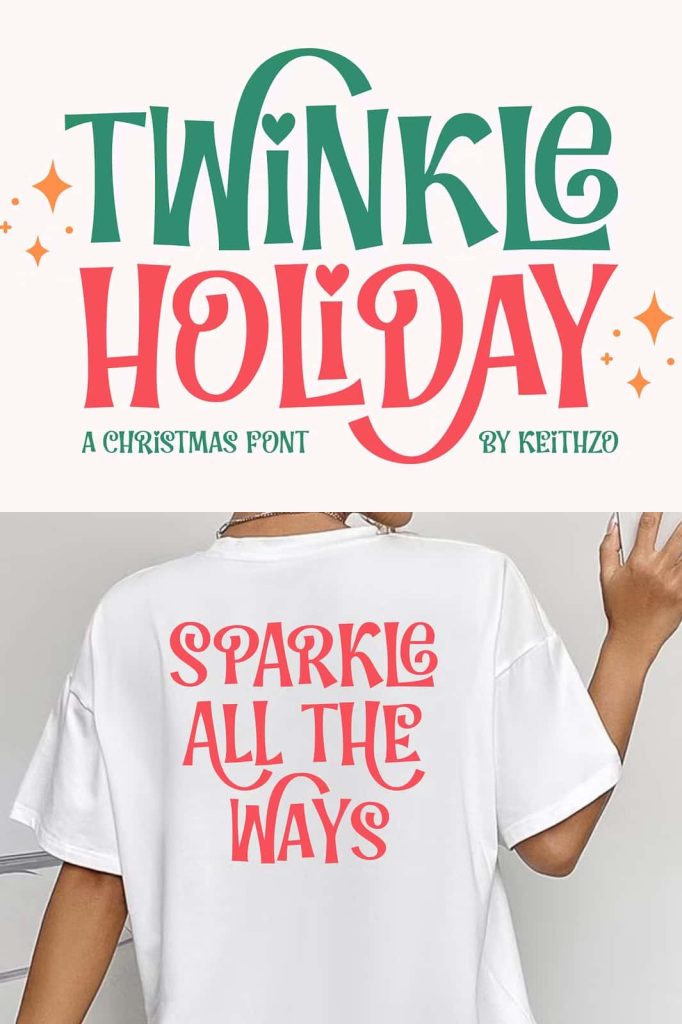
Twinkle Holiday Font
Twinkle Holiday is a beautifully handcrafted display font designed to fill every project with warmth, joy, and festive elegance. Created with a charming handmade touch, this typeface captures the magical spirit of the holiday season while offering exceptional versatility for year-round creative projects. Every letter reflects careful craftsmanship, allowing designers, crafters, and creative professionals to produce typography that feels authentic, inviting, and full of personality.
What makes Twinkle Holiday truly special is its ability to combine uppercase and lowercase letters seamlessly, creating natural variations that give every word a custom hand-lettered appearance. With beautifully designed alternate characters and decorative swashes, this font allows you to build expressive typography effortlessly, transforming ordinary text into memorable works of art.
Whether you’re designing holiday greeting cards, personalized gifts, seasonal branding, festive decorations, or creative social media content, Twinkle Holiday adds a delightful handcrafted charm that instantly captures attention.
A Beautiful Handcrafted Holiday Typeface
Twinkle Holiday celebrates the beauty of handmade lettering through carefully designed letterforms that feel both elegant and playful. Instead of rigid geometric shapes, every character features smooth curves, flowing strokes, and organic details that create a welcoming and personal appearance.
The handcrafted construction gives every project warmth and authenticity, making it ideal for creative work that aims to connect emotionally with its audience. From heartfelt holiday messages to premium product packaging, Twinkle Holiday delivers typography that feels sincere and memorable.
Its timeless design extends beyond seasonal projects, making it suitable for creative applications throughout the entire year.
Create Natural Letter Combinations
One of the most impressive features of Twinkle Holiday is its ability to create beautiful lettering simply by combining uppercase and lowercase characters. This thoughtful design approach introduces subtle variation throughout every word, producing typography that closely resembles genuine hand lettering.
The result is text that feels lively, expressive, and naturally balanced. Designers can create sophisticated compositions without spending additional time manually adjusting individual characters.
This feature makes the font especially valuable for invitations, branding, decorative quotes, and personalized gifts where originality matters.
Decorative Alternates and Elegant Swashes
Twinkle Holiday includes a collection of alternate characters and decorative swashes that allow you to customize your typography with ease. These OpenType features provide greater creative flexibility while maintaining consistency across your designs.
The elegant swashes add graceful finishing touches to words, creating typography that feels luxurious and handcrafted. Whether you want a subtle flourish or a more decorative appearance, the alternate options help you achieve the perfect visual style.
These creative features make Twinkle Holiday an excellent choice for premium branding, wedding stationery, holiday promotions, and artistic display typography.
Perfect for Holiday Craft Projects
Twinkle Holiday has been designed with creative crafters and designers in mind. Its festive personality makes it the perfect companion for seasonal projects, handmade products, and personalized gifts.
The font works beautifully for:
- Christmas cards
- Holiday invitations
- Gift tags
- Seasonal greeting cards
- Personalized mugs
- Custom t-shirts
- Pillows and home décor
- Holiday posters
- Festive wall art
- Printable crafts
- Scrapbooking projects
- Wedding stationery
- Birthday invitations
- Website banners
- Product packaging
- Brand logos
- Marketing materials
- Quote designs
- Creative merchandise
Ideal for Quotes and Personalized Designs
Inspirational quotes, heartfelt messages, and personalized typography become even more engaging with Twinkle Holiday. The font’s expressive personality helps every sentence feel genuine, making it perfect for creating memorable gifts and decorative artwork.
Whether you’re designing wall prints, custom signs, notebooks, journals, or greeting cards, Twinkle Holiday adds warmth and creativity that enhances every message.
The handcrafted appearance gives your typography a personal touch that resonates with audiences and customers alike.
Versatile Beyond the Holiday Season
Although inspired by festive celebrations, Twinkle Holiday offers far more than seasonal charm. Its elegant handwritten style adapts beautifully to lifestyle branding, boutique businesses, handmade products, artisan packaging, beauty brands, cafés, bakeries, and creative marketing campaigns.
The font pairs effortlessly with modern serif fonts, minimalist sans serif typefaces, watercolor illustrations, botanical artwork, and vintage-inspired layouts. This versatility allows designers to use Twinkle Holiday across countless creative styles throughout the year.
If you’re searching for a handcrafted font that delivers warmth, creativity, and timeless charm, Twinkle Holiday is an excellent addition to your font library. Its elegant design and flexible features ensure that every project shines with personality and professional quality throughout the holiday season and beyond.